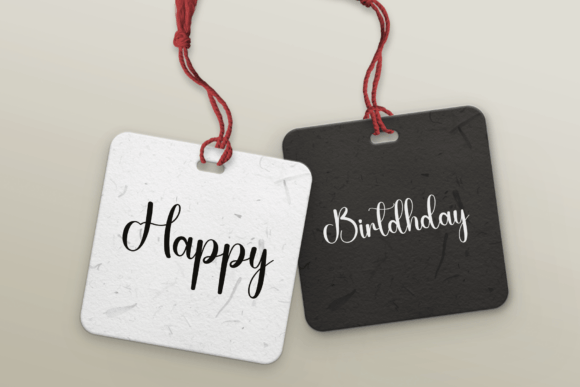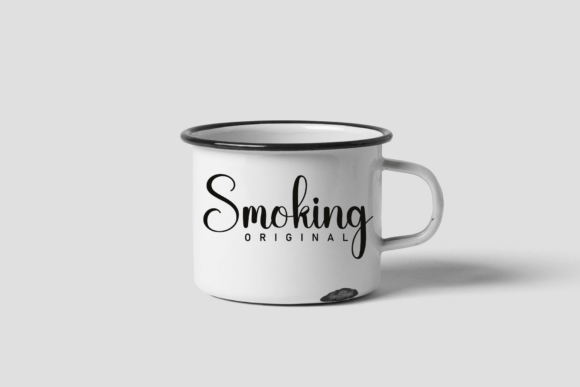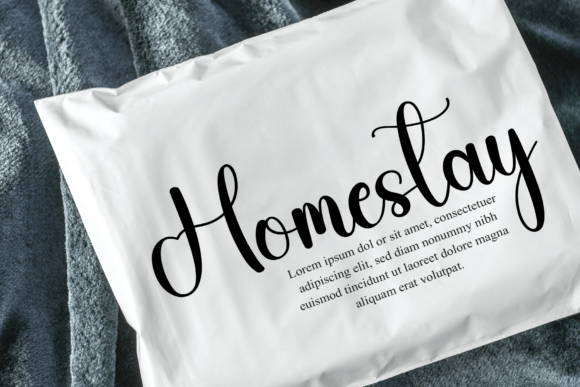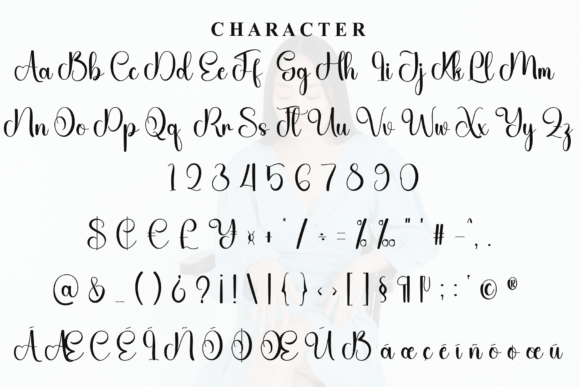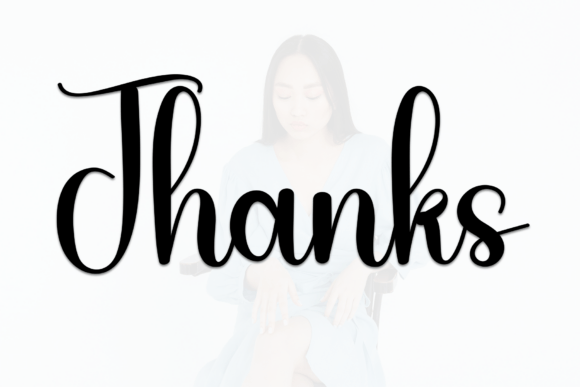
Discover the Charming Ameliya Font: Elevate Your Designs with Heartfelt Perfection
Are you on the hunt for a font that exudes warmth, comfort, and a touch of personality? Look no further than the Ameliya Font, a beautiful handwritten typeface that is sure to capture the hearts of designers and crafters alike. With its smooth strokes, organic lines, and relaxed atmosphere, Ameliya is the perfect addition to a wide range of design projects, from branding and invitations to social media graphics and more.
The Characteristics of Ameliya Font
So, what makes Ameliya Font so special? For starters, its handwritten nature gives it a unique, personal feel that is hard to replicate with more traditional fonts. The smooth strokes and organic lines that characterize Ameliya’s design evoke a sense of relaxed sophistication, making it perfect for designs that require a touch of elegance and refinement.
One of the standout features of Ameliya Font is its ability to convey a sense of warmth and approachability. The font’s rounded edges and flowing lines create a sense of movement and fluidity, making it perfect for designs that require a touch of personality and whimsy. Whether you’re looking to create a logo, invitation, or social media graphic, Ameliya Font is sure to bring a smile to your audience’s face.
Uses for Ameliya Font
So, what can you use Ameliya Font for? The possibilities are endless! Here are just a few ideas to get you started:
- Branding: Use Ameliya Font to create a logo or brand identity that is warm, inviting, and uniquely personality-driven.
- Invitations: Add a touch of elegance and sophistication to your invitations with Ameliya Font, perfect for weddings, baby showers, and other special occasions.
- Social Media Graphics: Use Ameliya Font to create eye-catching social media graphics that are sure to stand out in a crowded feed.
- Packaging: Add a personal touch to your product packaging with Ameliya Font, perfect for small businesses and crafters.
Why Designers and Crafters Love Ameliya Font
So, why do designers and crafters love Ameliya Font? For one, its unique and personality-driven design makes it a standout in a sea of more traditional fonts. Additionally, Ameliya Font is incredibly versatile, making it perfect for a wide range of design projects and applications.
Tips for Using Ameliya Font
Here are a few tips for getting the most out of Ameliya Font:
- Pair it with bold colors: Ameliya Font looks amazing paired with bold, bright colors. Try pairing it with a deep blue or bright coral for a look that’s sure to pop.
- Experiment with sizes: Ameliya Font looks great in a variety of sizes, from large headings to smaller body text. Experiment with different sizes to find the perfect fit for your design.
- Add some texture: Ameliya Font looks amazing with a bit of texture added to the design. Try adding a subtle texture or pattern to give your design some extra depth and interest.
In conclusion, Ameliya Font is a charming handwritten font that is sure to capture the hearts of designers and crafters alike. With its smooth strokes, organic lines, and relaxed atmosphere, Ameliya is the perfect addition to a wide range of design projects, from branding and invitations to social media graphics and more. Whether you’re looking for a font that exudes warmth, comfort, and personality, or simply want to add a touch of elegance and sophistication to your designs, Ameliya Font is the perfect choice.